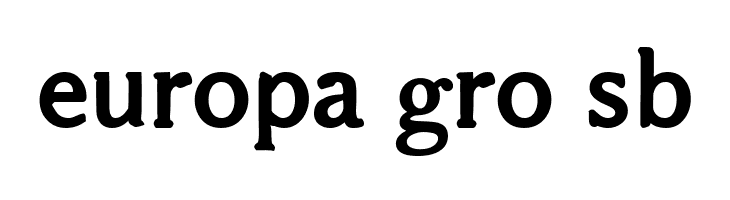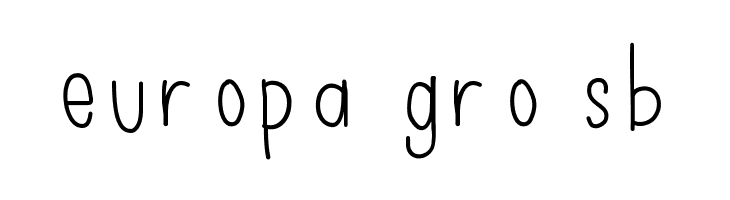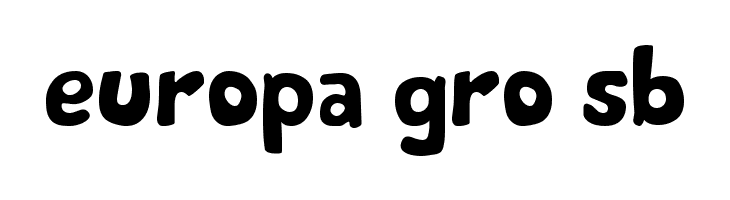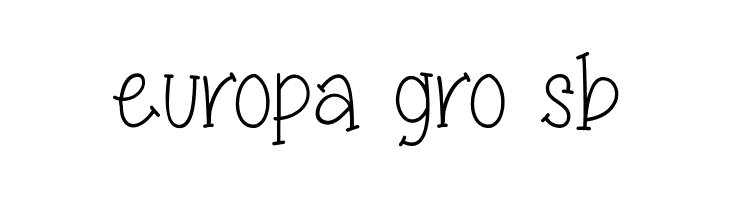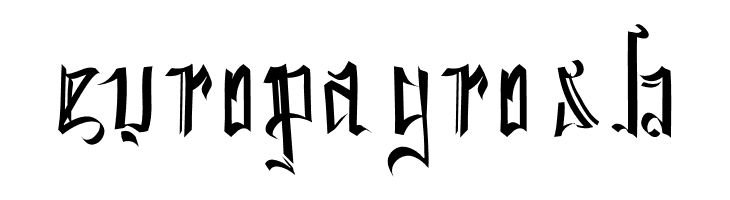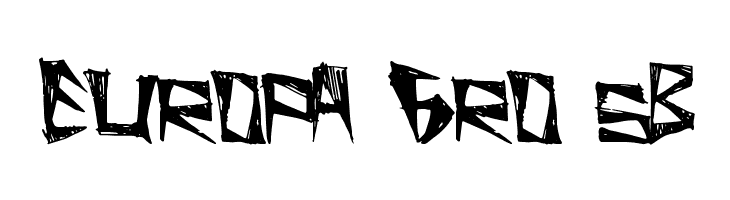
A bold serif font with a classic yet modern design.
A playful, hand-drawn font with tall, slender characters and a modern look.
A bold, graffiti-inspired font with a hand-drawn, textured appearance.
A playful, bold, and hand-drawn font with rounded edges and high contrast.
A playful, handwritten font with tall, narrow characters and a casual vibe.
A playful, handwritten font with a quirky and casual style.
A playful, handwritten font with bold, uneven strokes and decorative elements.
A bold, gothic blackletter font with intricate detailing and sharp, angular lines.
A bold, gothic blackletter font with high contrast and intricate detailing.
A bold, jagged font with an edgy, rebellious style.